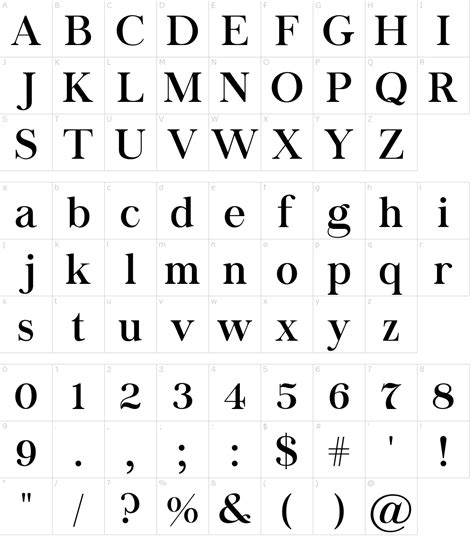
Chapaza Font Family: Explore Its Features
Chapaza Font Family: A Deep Dive into Its Features
Hey guys! Today, we’re going to talk about something super cool for all you design enthusiasts out there: the Chapaza Font Family . You know, finding the perfect font can really make or break a design, right? It’s like the secret sauce that adds personality, readability, and a whole lot of style. The Chapaza font family isn’t just another pretty typeface; it’s a versatile collection designed to meet a wide range of typographic needs. Whether you’re crafting a brand identity, designing a website, laying out a magazine, or even just creating a social media post, Chapaza has got your back. Its creators have poured a lot of thought and effort into making it not only aesthetically pleasing but also highly functional. We’re talking about a font that can convey a sense of modern elegance while remaining incredibly approachable.
What really sets the Chapaza font family apart is its extensive range of weights and styles. We’re not just talking about a regular and a bold here, oh no. Chapaza usually comes packed with a spectrum of options, from the lightest hairline to the most robust ultra-bold, and often includes italics for each weight. This sheer variety means you can achieve sophisticated typographic hierarchy in your designs. Imagine using a light italic for a subtle caption, a regular weight for body text, and a strong bold for headings – all within the same cohesive font family! This consistency is crucial for creating a professional and harmonious look. Plus, this level of detail means Chapaza can adapt to different contexts. Need something delicate and airy? Go for the thin weights. Need something impactful and commanding? The heavier weights will do the trick. This flexibility is a designer’s dream, saving you the headache of hunting for multiple fonts that almost match.
Let’s dive a bit deeper into the design characteristics that make the Chapaza font family so appealing. Typically, Chapaza fonts lean towards a modern sans-serif or serif style, characterized by clean lines, balanced proportions, and excellent legibility. The letterforms are often designed with a keen eye for detail, ensuring that each character is distinct and recognizable, even at smaller sizes. You might notice subtle curves, carefully considered kerning, and an overall sense of refinement. For example, if it’s a sans-serif, you’ll find that the terminals are clean, avoiding unnecessary embellishments, which contributes to its contemporary feel. If it’s a serif, the serifs themselves are usually well-integrated and not overly decorative, maintaining a sense of clarity. The x-height is typically generous, which boosts readability in body text, making it comfortable for readers to get through longer passages of content. It’s this thoughtful construction that allows Chapaza to perform exceptionally well across various media, from high-resolution print to crisp digital displays. The designers likely focused on creating a typeface that feels friendly and inviting, avoiding anything too harsh or rigid, making it a great choice for projects where you want to build a connection with your audience.
Versatility in Application
Now, let’s talk about where you can actually use this amazing Chapaza font family. Seriously, the possibilities are almost endless, guys! Its inherent versatility makes it a go-to choice for a wide array of design projects. For branding , imagine using Chapaza for a startup aiming for a modern, trustworthy image. A sleek logo using the lighter weights, paired with bold headings and clean body text for their website and marketing materials, would look absolutely stunning. The consistency across the family ensures that the brand’s visual identity remains cohesive and professional. Think about a tech company, a minimalist fashion label, or even a high-end organic food brand – Chapaza can adapt its tone to fit. Web design is another huge area where Chapaza shines. Its excellent legibility, especially in the regular and medium weights, makes it perfect for website copy, blog posts, and user interface elements. The clarity ensures that users can easily navigate and consume information without eye strain, which is a massive win. Plus, the range of weights allows designers to create clear visual hierarchy, guiding the user’s eye through the content effectively. You can use a bolder weight for calls-to-action or important navigation links, making them stand out. For print design , whether it’s a brochure, a book cover, or a poster, Chapaza offers the sophistication and readability needed. The heavier weights can create powerful headlines that grab attention, while the lighter weights can be used for elegant subheadings or detailed captions. Book designers, in particular, will appreciate the range for setting extensive body text that is comfortable to read over long periods. Even in editorial design , like magazines and newspapers, the Chapaza font family provides the structure and style needed to organize complex layouts and present information attractively. The different weights and italics allow for a dynamic and engaging reader experience. So, whether you’re working on a digital platform or a physical piece, Chapaza is designed to impress and perform.
Exploring Different Weights and Styles
Let’s get real for a second, guys. The true magic of the Chapaza Font Family really unfolds when you start playing around with its different weights and styles. It’s not just about having options; it’s about how these options empower your design choices and allow for nuanced communication. We touched on this earlier, but let’s really dig in. Think about the Thin or Hairline weights. These are your go-to for an ultra-modern, sophisticated, and almost ethereal feel. Perfect for subtle branding elements, elegant quotes, or as a delicate accent in a minimalist design. They add a touch of class without being loud. Then you have the Light weight. This is still refined but offers a bit more substance than the hairline. It’s fantastic for subheadings, captions, or longer blocks of text where you want a light, airy feel but need assured readability. It feels gentle and approachable. The Regular weight is your workhorse, your everyday hero. This is the weight you’ll likely use most for body copy, standard headings, and general text. It’s designed for maximum readability and balance, ensuring your message comes across clearly and comfortably. It’s the foundation upon which the rest of your typographic hierarchy is built. Moving up, we encounter the Medium weight. This sits comfortably between Regular and Bold, offering a bit more presence without being too heavy. It’s great for subheadings that need to stand out a little more or for short bursts of text that require emphasis. Then comes the Bold weight. This is where you start making a statement! Bold is perfect for strong headings, crucial call-to-action buttons, or highlighting key phrases that you want readers to notice immediately. It commands attention and adds significant visual weight. Finally, we have the Heavy or Black weights, sometimes even Extra Bold or Ultra Bold . These are your powerhouses. Use them for massive headlines, impactful statements, or when you absolutely need your text to dominate the visual space. They convey strength, boldness, and undeniable presence.
But wait, there’s more! The inclusion of Italic styles for many, if not all, of these weights is a game-changer. Italics aren’t just for showing off; they serve distinct purposes. They are fantastic for adding emphasis to specific words or phrases within a block of regular text – a subtle way to draw attention without resorting to bold. They’re also traditionally used for foreign words, book titles, or technical terms. In design, italic fonts can add a touch of elegance, dynamism, or a slightly more conversational tone. Imagine pairing a regular weight body text with an italicized quote or a thought bubble – it creates visual interest and separates the content effectively. The combination of a full spectrum of weights and the availability of italics allows designers to craft intricate and nuanced typographic systems. You can create subtle shifts in emphasis, guide the reader’s eye, and build a sophisticated visual narrative, all while maintaining the inherent character and harmony of the Chapaza font family. It’s this meticulous attention to detail and the provision of extensive options that make Chapaza a truly valuable asset in any designer’s toolkit. Seriously, playing with these variations is where the real fun and creativity happen!
Typographic Hierarchy and Readability
Alright folks, let’s get down to the nitty-gritty: how the Chapaza Font Family helps you nail typographic hierarchy and readability . This is super important, guys, because a design that looks pretty but is hard to read is, well, kind of useless, right? Hierarchy is all about guiding your reader’s eye through the content in the order you want them to consume it. Think of it like a roadmap for your audience. You want them to see the main title first, then maybe a subheading, then the body text, and perhaps notice a highlighted quote or a call-to-action. The Chapaza family, with its diverse weights and styles, is brilliantly equipped for this. You can use a commanding Heavy or Bold weight for your main headline (H1), making it instantly the most prominent element. Then, perhaps a Medium or Semi-bold weight for your subheadings (H2, H3), giving them clear importance but ensuring they don’t overpower the main title. For the actual body text, you’d naturally opt for the Regular or Book weight. These are optimized for comfortable reading over extended periods. The designers of Chapaza have likely paid close attention to its x-height – the height of lowercase letters like ‘x’. A generous x-height generally improves readability, as it makes the letters appear larger and more distinct, even at smaller point sizes. This is crucial for websites and apps where users might be viewing content on various screen sizes and resolutions.
Furthermore, the letter spacing (kerning) and overall proportions of Chapaza’s characters are usually carefully considered. Good kerning ensures that the space between individual letters is visually appealing and consistent, preventing awkward gaps or overly tight squeezes that can hinder reading. The balanced proportions mean that letters like ‘o’, ‘c’, ‘e’ (round shapes) and ‘n’, ’m’, ‘h’ (straight shapes) feel harmonious together. This attention to detail prevents visual fatigue. When you combine these elements – distinct weights for different levels of information, optimized letterforms for clarity, and thoughtful spacing – you create a strong and intuitive typographic hierarchy. Readers can effortlessly scan the page, understand the structure of the information, and find what they’re looking for. Readability isn’t just about making the text legible; it’s about making it easy and pleasant to read. The Chapaza font family achieves this by offering a range of options that allow you to create contrast and distinction without sacrificing harmony. You can use italics for emphasis, ensuring the contrast is clear but not jarring. The clean, well-defined letterforms of Chapaza contribute significantly to its overall legibility. Even in smaller sizes or lower resolutions, the characters retain their integrity, avoiding the blurriness or ambiguity that can plague less well-designed fonts. So, when you’re thinking about your next project, remember that choosing a robust font family like Chapaza isn’t just about aesthetics; it’s a strategic decision that directly impacts how effectively your message is received. It empowers you to build clear, scannable, and enjoyable reading experiences for your audience, which is, frankly, the whole point of communication, isn’t it?
Conclusion: Why Chapaza is a Smart Choice
So, there you have it, guys! The Chapaza Font Family is way more than just a collection of letters; it’s a thoughtfully designed typographic system built for performance and versatility. We’ve explored how its extensive range of weights and styles provides incredible flexibility, allowing you to craft everything from delicate, elegant accents to bold, impactful statements. This adaptability makes it a powerhouse for branding , web design , editorial layouts , and pretty much any project you can throw at it. The inherent readability and focus on clear typographic hierarchy mean that your message won’t just look good; it will be understood. Chapaza helps you guide your readers effortlessly, ensuring a smooth and enjoyable experience. Its clean design, balanced proportions, and attention to detail result in a typeface that is both professional and approachable. Choosing Chapaza is a smart move because it offers a cohesive and sophisticated solution, reducing the need to juggle multiple fonts. It’s an investment in clear communication and polished design. Whether you’re a seasoned pro or just starting out, incorporating the Chapaza font family into your toolkit is sure to elevate your work. Give it a spin, experiment with its variations, and see how it can transform your next design project. You won’t be disappointed! Seriously, it’s a real gem. Happy designing!